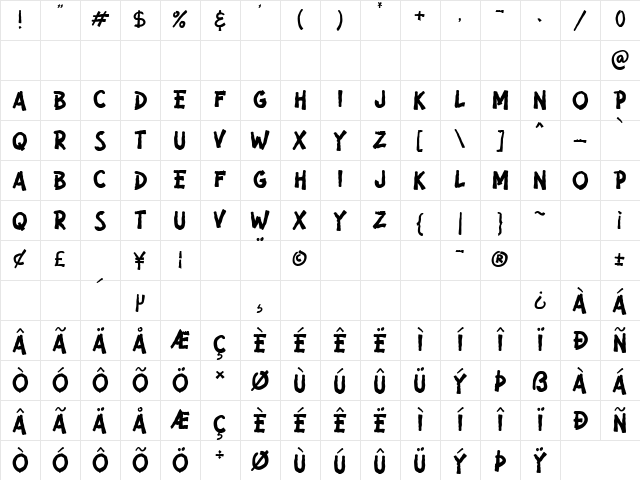
Nature Breath Regular
Designer: Muhammad Sirojuddin
Design Context for Nature Breath
Nature Breath is a composed and adaptable typeface that performs quietly and consistently across a wide range of design contexts.
Pro Tip: Use Nature Breath in both headline and body roles to test its range before committing to a single application.